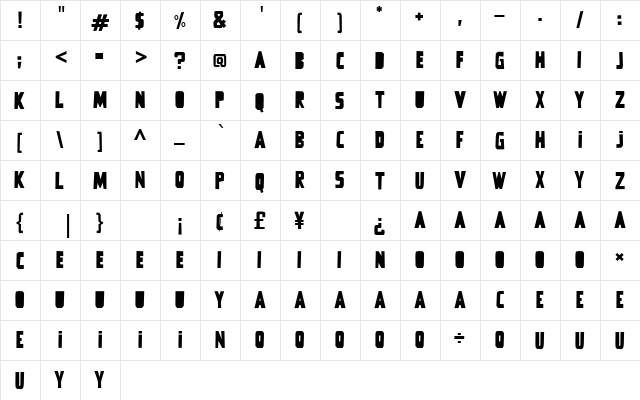
Hi TV DEMO Regular
| Foundry | Yebhu |
| Designer | ntngp |
Design Context for Hi TV DEMO Typeface
Hi TV DEMO takes a measured approach to typography — its balanced proportions and neutral character make it a reliable workhorse for both digital and print work.